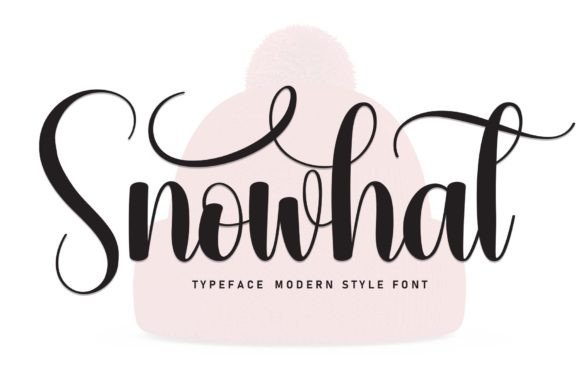
Introducing Snowhat Font, the perfect blend of elegance and modernity! Crafted by the talented Roronoa zoro.S.P.D, this script font is a must-have for anyone seeking the best font for tattoo cursive designs. Let Snowhat Font elevate your creative projects and leave a lasting impression on your audience.
With its exquisite handwritten style, Snowhat Font exudes a timeless charm that will captivate your senses. Each letter is meticulously crafted, maintaining a delicate balance between calligraphy and contemporary design. The result is a font that stands out from the crowd, adding a touch of sophistication to any project.
Whether you're working on a tattoo design, wedding invitations, logos, or branding materials, Snowhat Font is your secret weapon. It effortlessly conveys a sense of elegance and refinement, making it the ideal choice for those who want to make a statement. Embrace the versatility of Snowhat Font, as it seamlessly complements a wide range of themes and aesthetics.
But Snowhat Font is more than just a pretty face. Its functionality is equally impressive. With its easy-to-read characters and smooth lines, this font ensures that your message is delivered with clarity and impact. It's the perfect balance between style and readability, ensuring that your audience can effortlessly connect with your content.
When you download Snowhat Font, you unlock a world of creative possibilities. Let your imagination run wild as you explore its vast potential. Create stunning designs that evoke emotion and leave a lasting impression. From tattoos that tell powerful stories to personalized stationery that captures hearts, Snowhat Font will be your trusted companion.
Experience the thrill of using a font that not only meets your expectations but exceeds them. Snowhat Font is more than just words on a page; it's a tool that empowers you to express yourself in the most beautiful way possible. Feel the confidence surge through your veins as you bring your artistic visions to life with this captivating font.